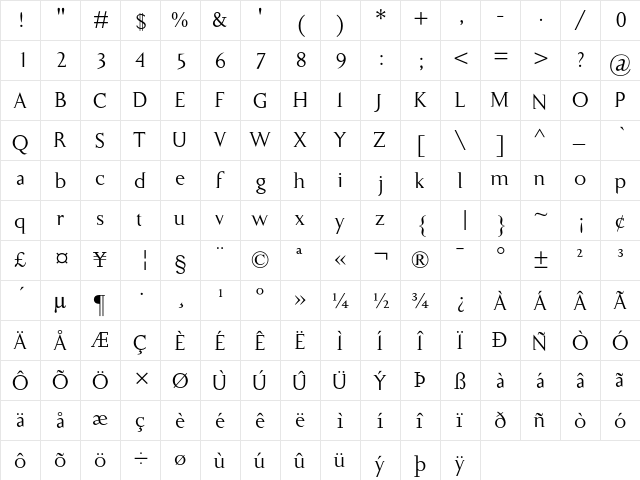
KopyKattKut-Regular Katt Kut-Regular Font Preview
KopyKattKut-Regular Katt Kut-Regular
Design Context for KopyKattKut-Regular Typeface
KopyKattKut-Regular takes a measured approach to typography — its balanced proportions and neutral character make it a reliable workhorse for both digital and print work.